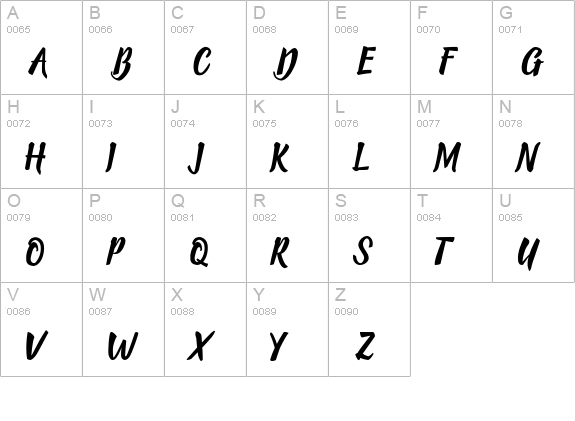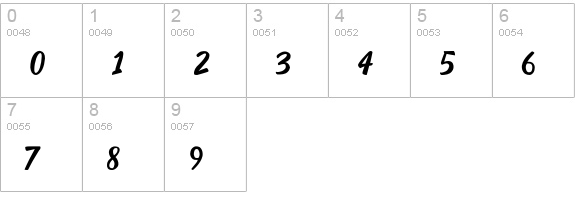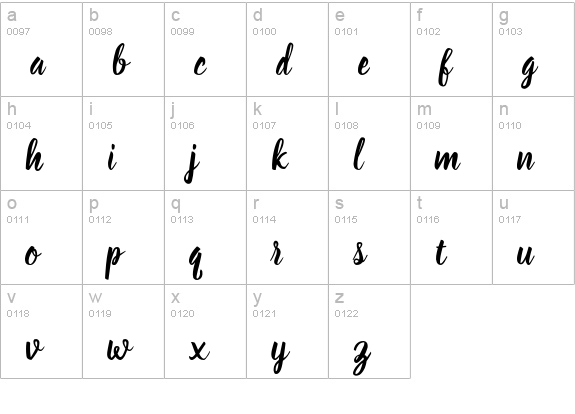
beloved Font Details
Beloved Font is a stunning and versatile typeface that is sure to capture the hearts of designers and creatives alike. With its elegant curves and timeless appeal, this font exudes a sense of warmth and charm that will elevate any project it graces. Whether you're looking to add a touch of sophistication to your branding, create eye-catching headlines, or design beautiful invitations, Beloved Font is the perfect choice. What's even better is that Beloved Font is available for free download at FontsMarket.com. This means that you can easily access this premium font without breaking the bank. So go ahead, unleash your creativity and bring your designs to life with the beauty and elegance of Beloved Font.